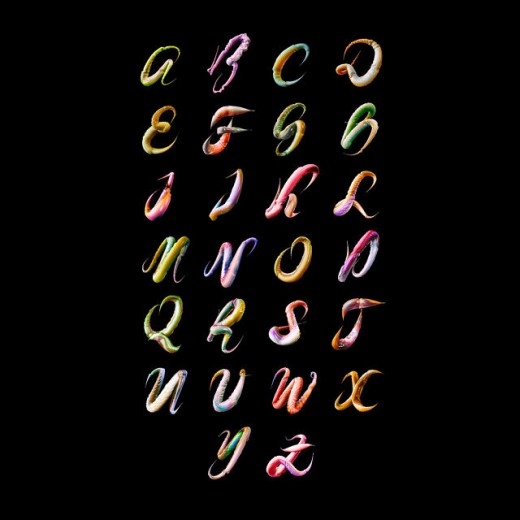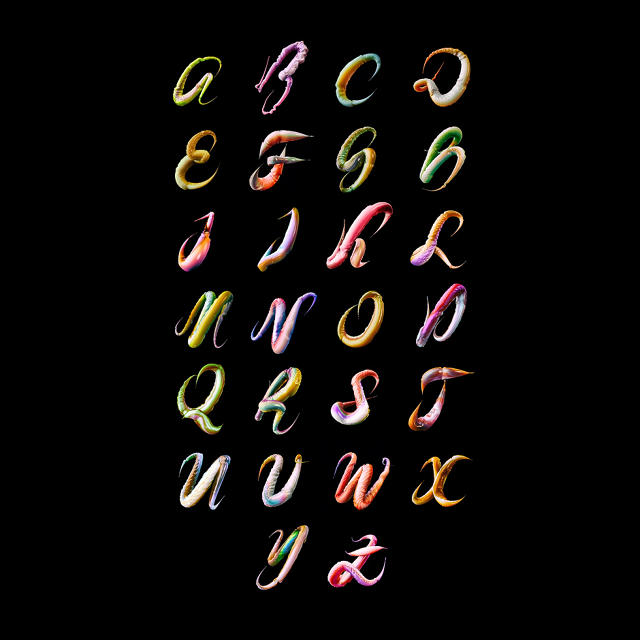
somewhere, a mad scientist is rising a menagerie of slimy alien creatures with the aid of splicing collectively the genes of squids and insects. but it surely’s no longer in some lab below area fifty one—it’s on the Mac pro of Ari Weinkle, who’s been spending his nights and weekends off from Icon Interactive to piece collectively this shivers-inducing typeface referred to as Feelers.
“i am hoping that it makes individuals really feel intrigued,” Weinkle says of his work, “and in all probability slightly unsettled.”
The work started innocently enough, as Weinkle toyed round with lights and textures in his three-D modeling instrument. a undeniable mixture reminded him of the oozy skin of sea creatures. impressed, he began modeling a 2-D alphabet in Illustrator, the usage of an old kind specimen as his letter rubric, and photos of cephalopods as his organism rubric.
“discovering the stability between creepy and beautiful was once certainly one of the vital more challenging components,” Weinkle says. “It was also difficult working with the simulations and getting the whole lot to feel right.”
He became the work three-D, then gave it movement inside Cinema4D. He crafted motion from muscle simulations which he tweaked with hand animation—and certainly, for those who look via all the alphabet in movement, you’ll discover that these letters feel like they have minds of their very own, transferring less with respect to their individual glyphs, and extra out of an organic power of clean muscle tissue that your thoughts can’t commence to deconstruct.
I wouldn’t say it’s probably the most sensible typeface,” Weinkle says. “It’s extra of a conceptual scan.” no longer an issue—the best mad scientists’ experiments err towards the conceptual.